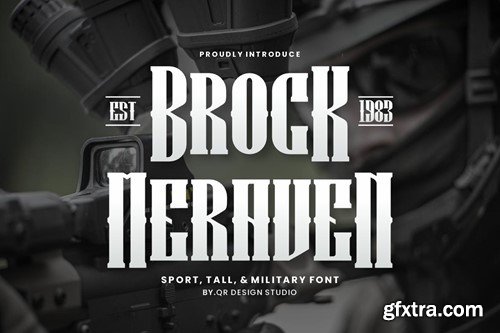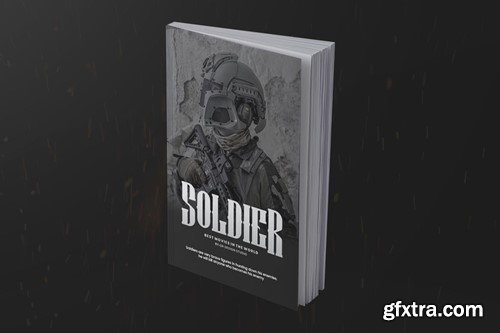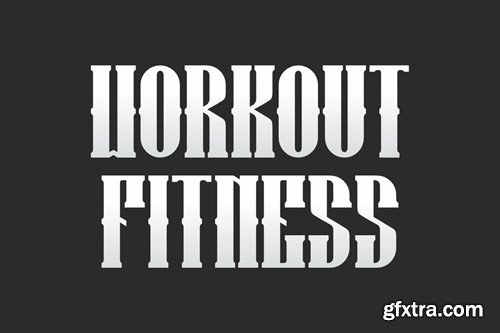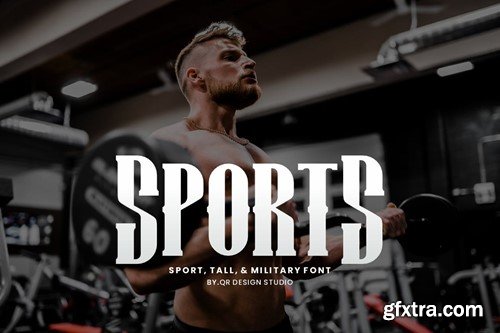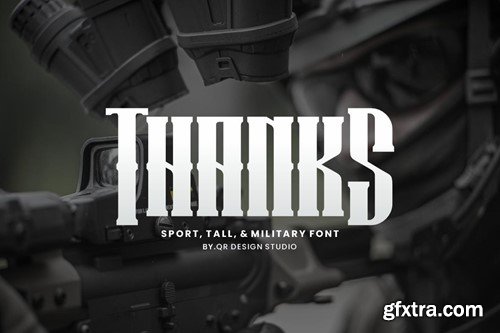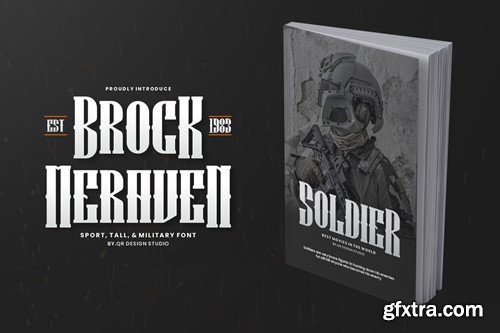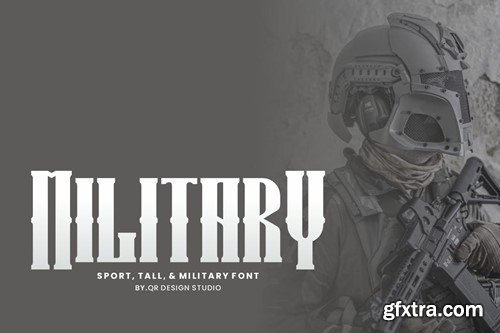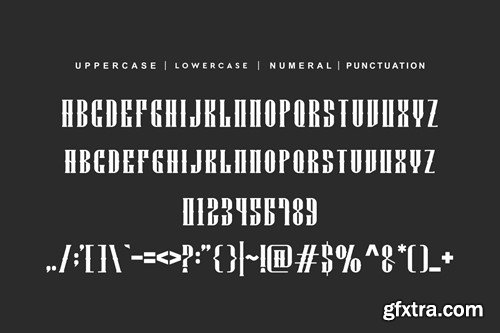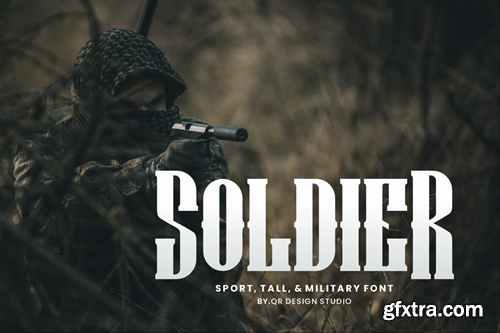
Brock Meraven - 运动与军事字体 MWSYAHF
Brock Meraven - Sport & Military Font MWSYAHF
Brock Meraven - Sport & Military Font
Brock Meraven Font is a bold and authentic display font. The font is suitable for any branding project like poster, logo, sport, and many more. Outstanding in a wide range of contexts.